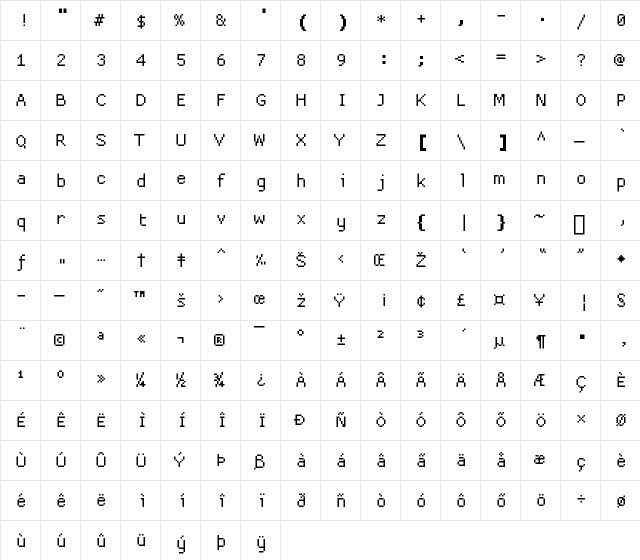
ProggyCleanTTSZBP Regular
Design Context for ProggyCleanTTSZBP Typeface
ProggyCleanTTSZBP is a composed and adaptable typeface that performs quietly and consistently across a wide range of design contexts.